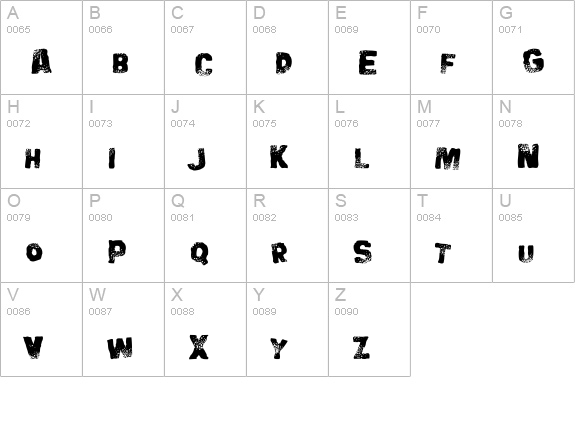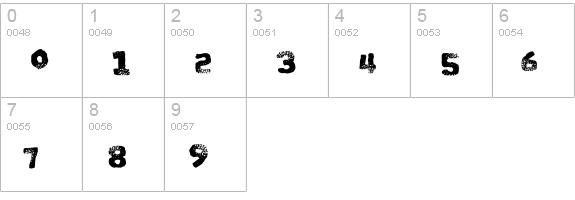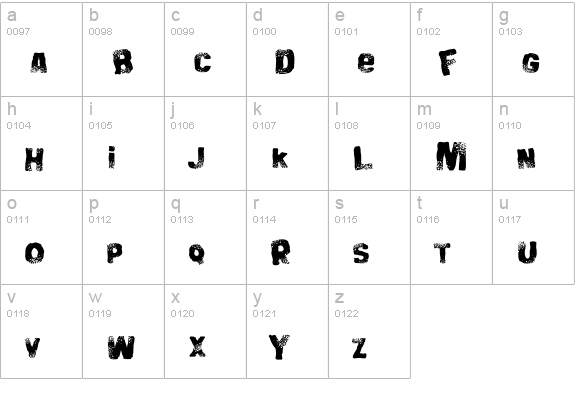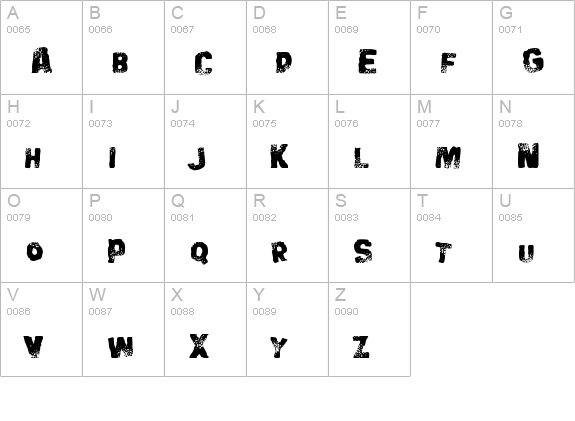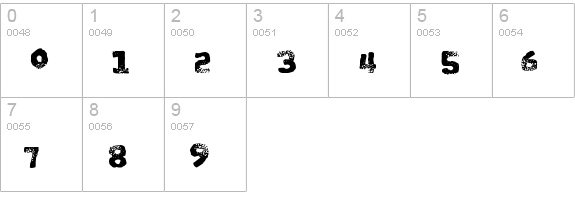
Big Bloke BB Font Details
Big Bloke BB font is a bold and eye-catching typeface that exudes strength and personality. Its thick, heavy lines make a statement and demand attention, perfect for headlines, titles, and other prominent text in your designs. With its unique and distinctive style, Big Bloke BB font adds a touch of boldness and character to any project. The best part? Big Bloke BB font is available for free download at FontsMarket.com. You can easily access this powerful and impactful font to enhance your creative projects without any cost. So why wait? Download Big Bloke BB font today and make your designs stand out with its bold presence.